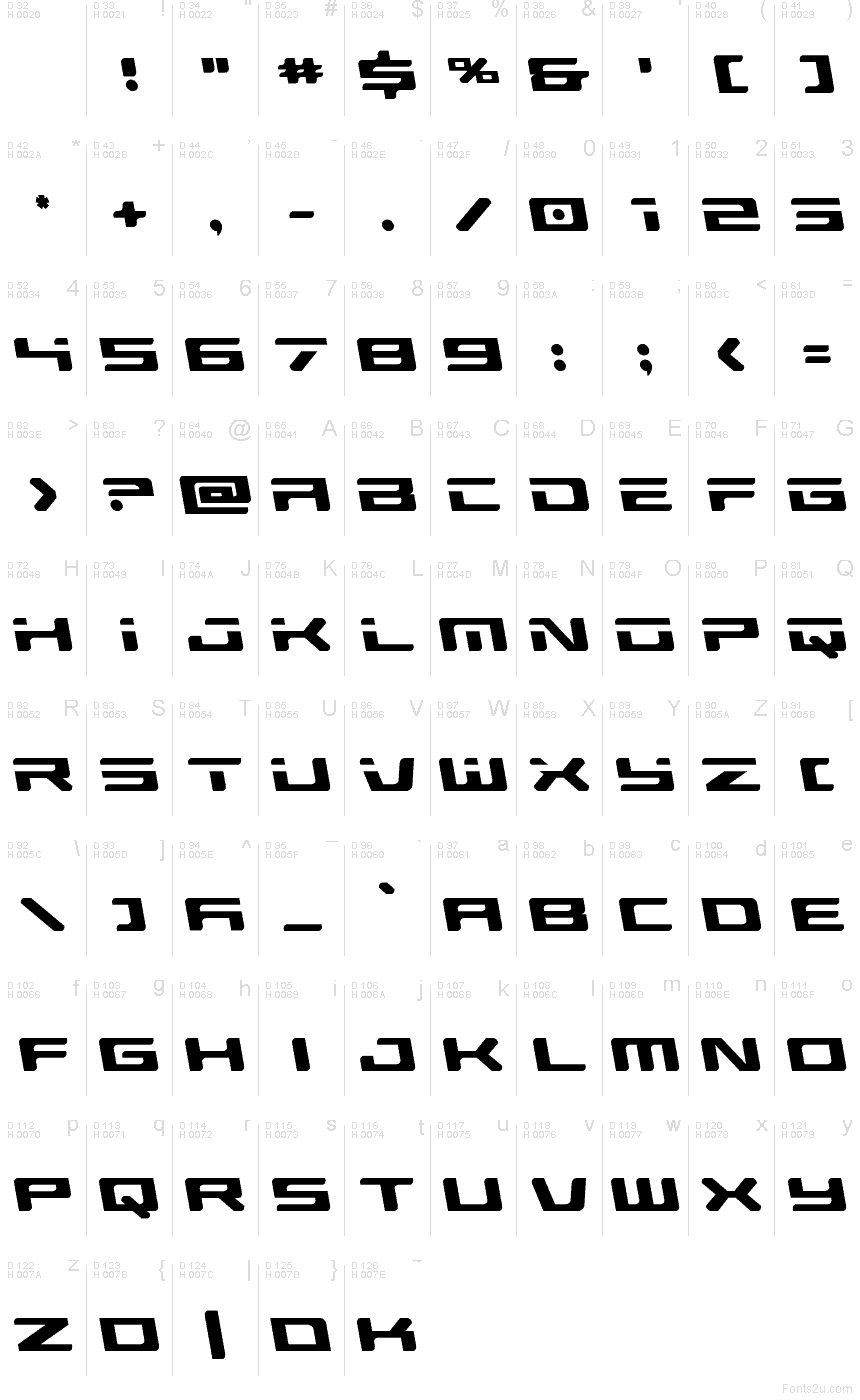
Race Pod Slight-Leftalic
Race Pod Slight-Leftalic font by Iconian Fonts is a free futuristic display typeface in the Race Pod family, built for pure velocity on the page. Its chunky, squared curves, tight spacing, and subtle left-lean give every word a sense of slingshot motion, like neon signage caught mid-drift. The solid, blocky strokes read boldly at a glance, while the angular cuts keep it feeling aggressive and ultra-modern.
Using Race Pod Slight-Leftalic, you can brand racing games, esports teams, sci-fi posters, tech event titles, streaming overlays, and high-impact logos that need instant attitude. This free font shines at large sizes where its compressed forms and sharp edges can hit full force. For supporting text, pair it with a clean geometric sans in a lighter weight to keep the main title feeling fast, heavy, and unmistakably futuristic.